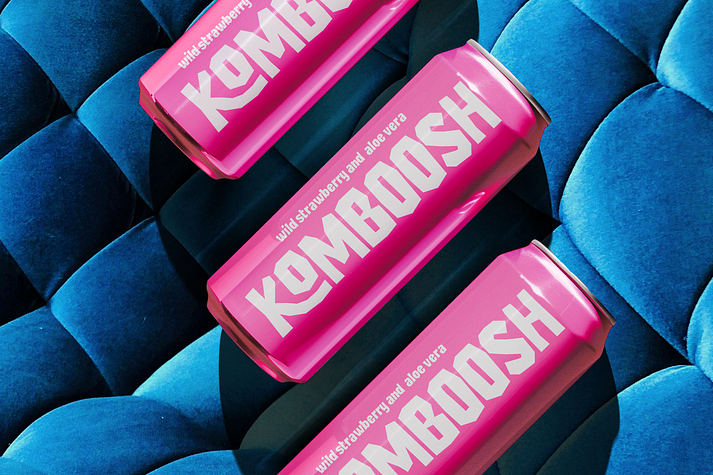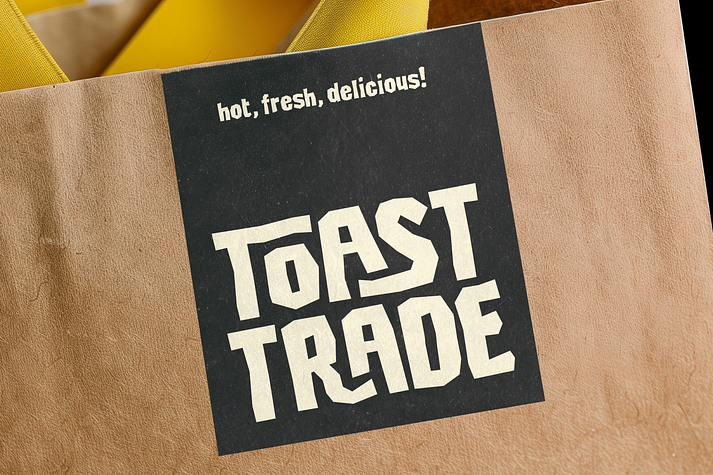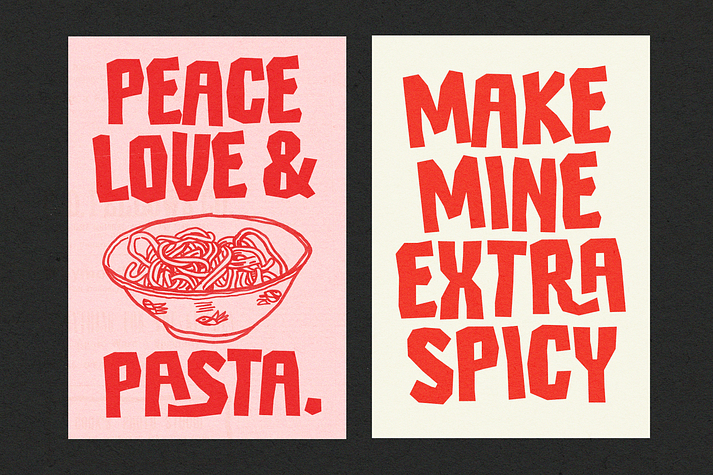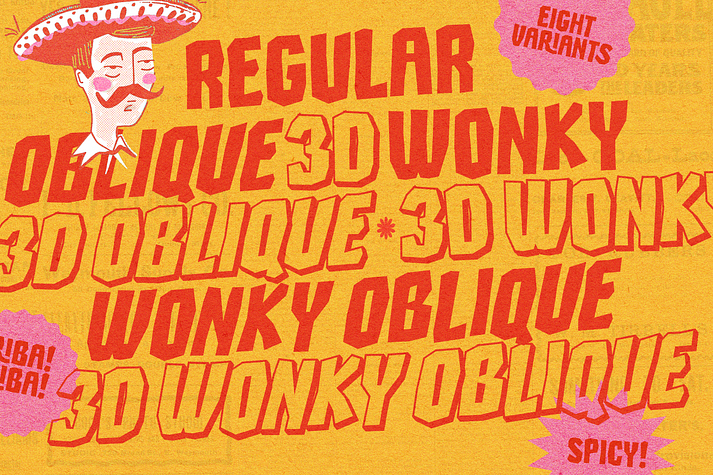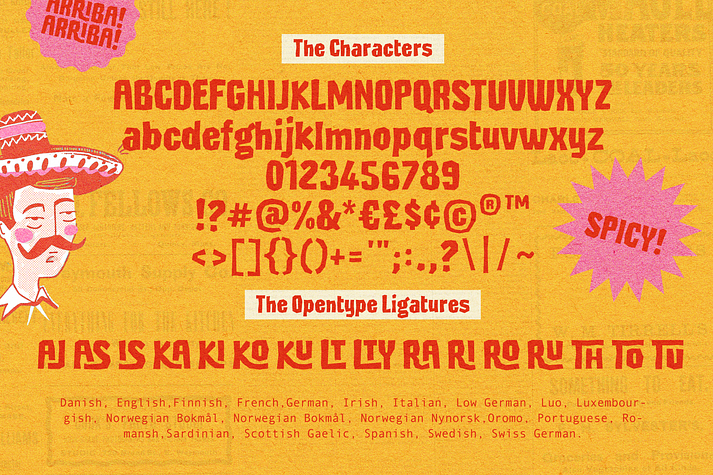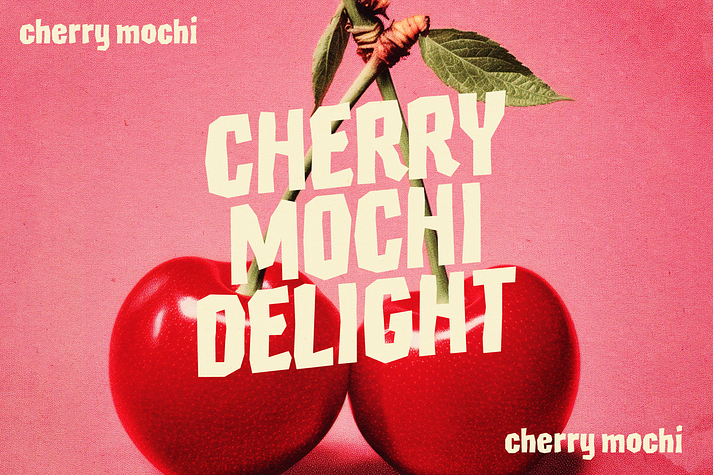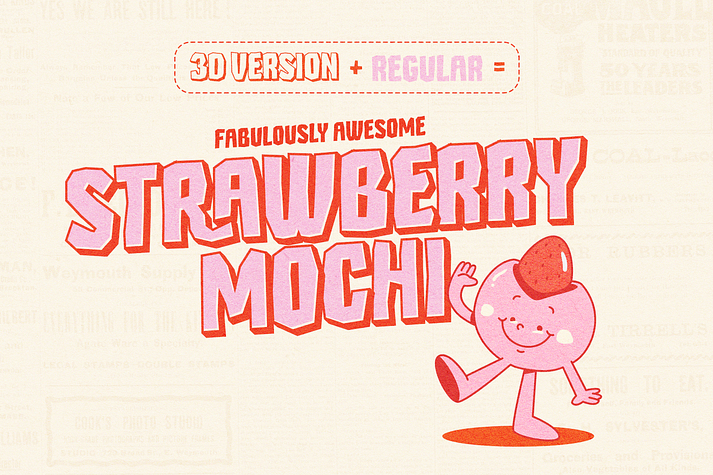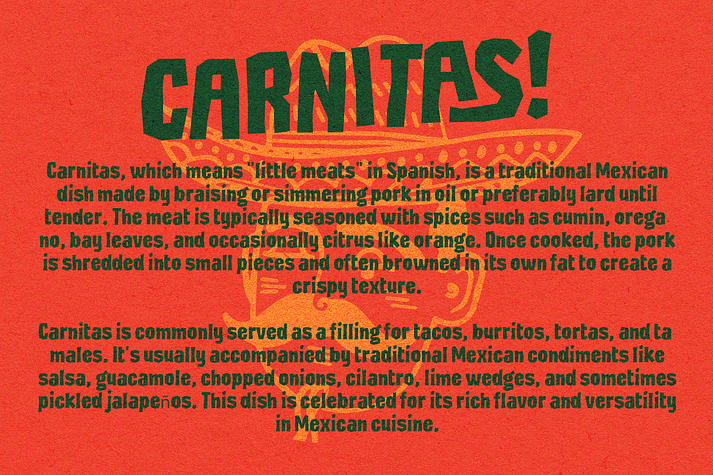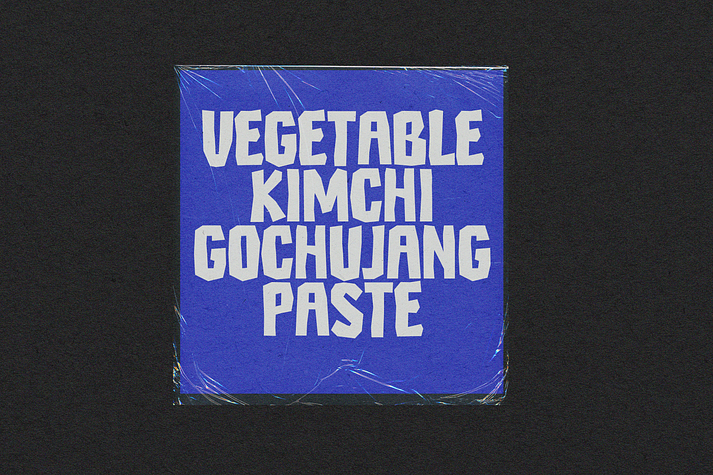
SALTY SOMBRERO
SALTY SOMBRERO is a display sans font family. This typeface has eight styles and was published by Nicky Laatz.
Embrace the bold. Embrace the authentic. Embrace Salty Sombrero!  – the typeface that tells a story with every letter. Vibrant and fun, Salty Sombrero has an authentic handcrafted vibe, with cheeky angular edges that demand attention!
Perfect for projects that need bold character and cultural flair! Inspired by the rich cultural heritage of Mexico, Salty Sombrero also looks great in Eastern, Oriental and even Tropical settings.
Salty Sombrero has a lovely collection of special ligatures that make it even more cheeky :) Turn on your Opentype Ligatures to display them as you type. If you don’t have Opentype capable Software - you can use Fontbook or Charmap to copy and paste them to where you want them.
Salty Sombrero comes in 8 variants: Regular, ‘Wonky’, a 3D version of each, and an oblique version of each.